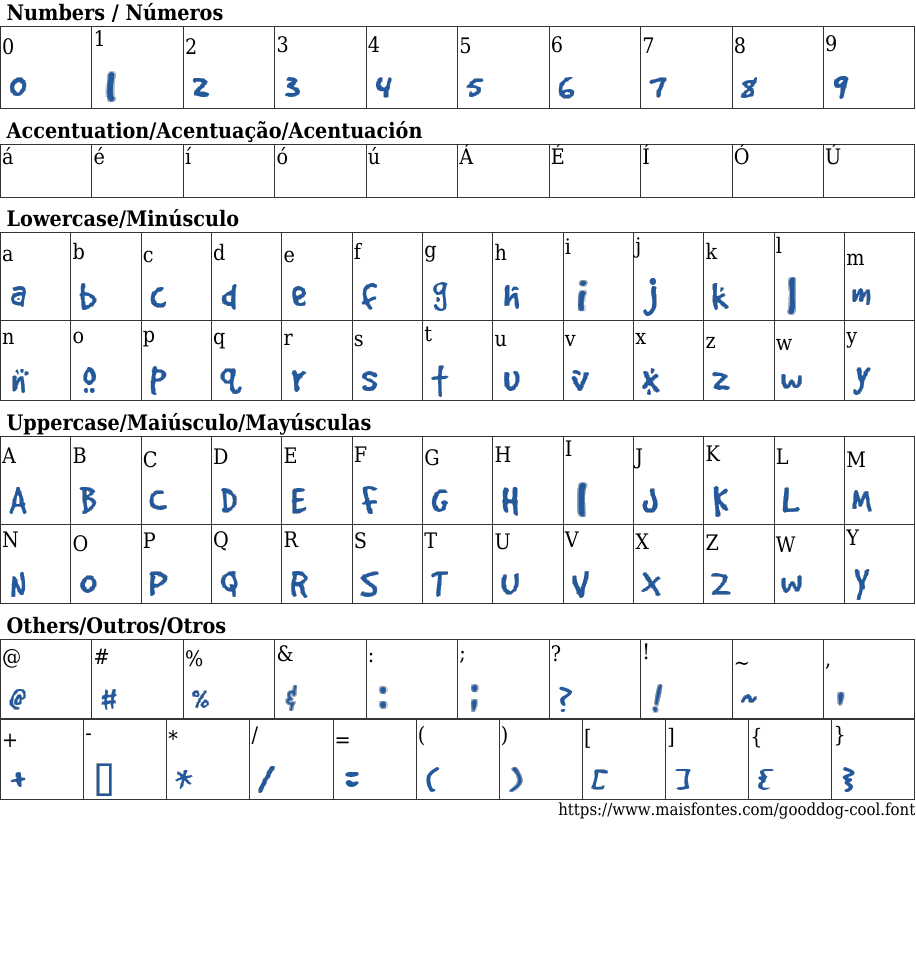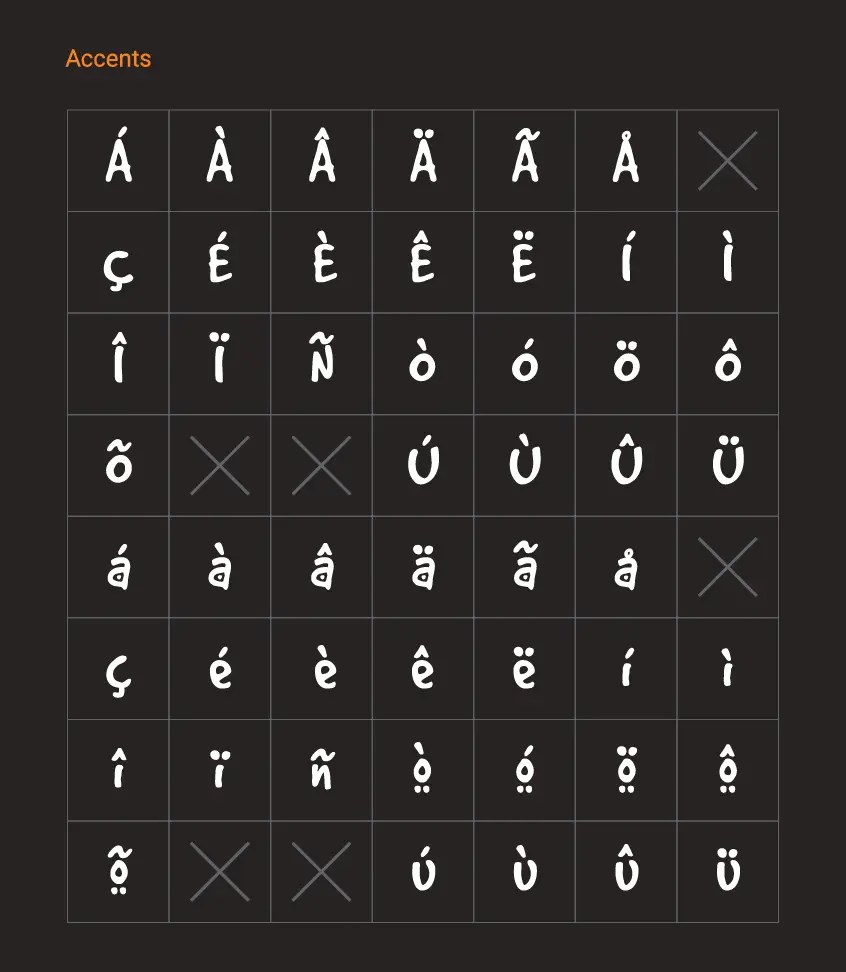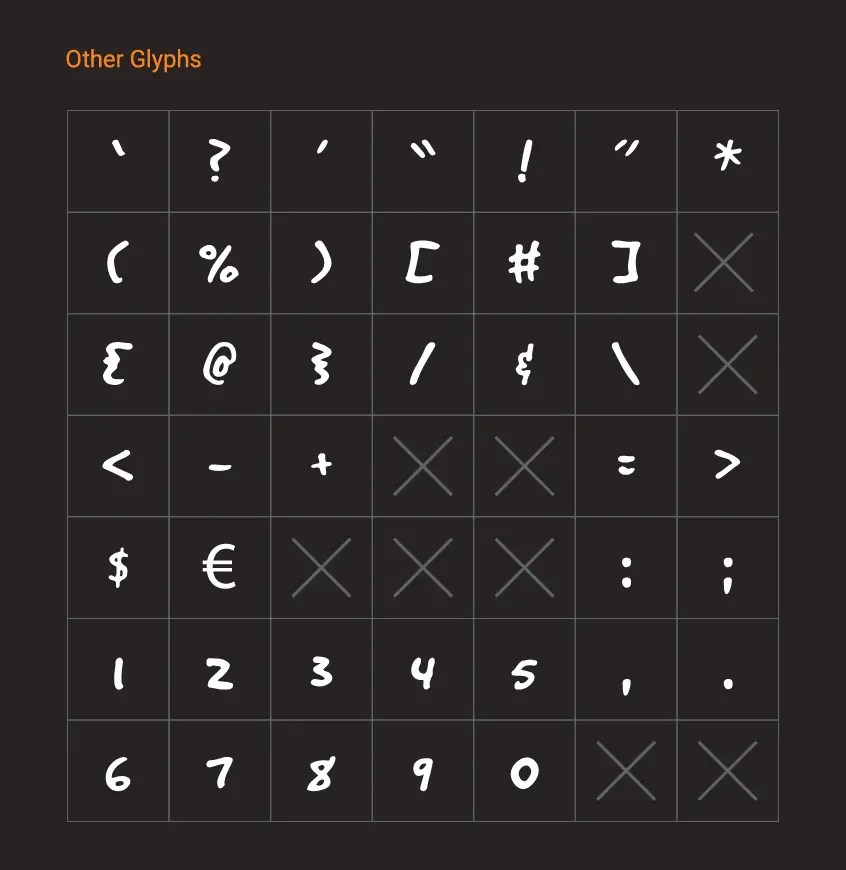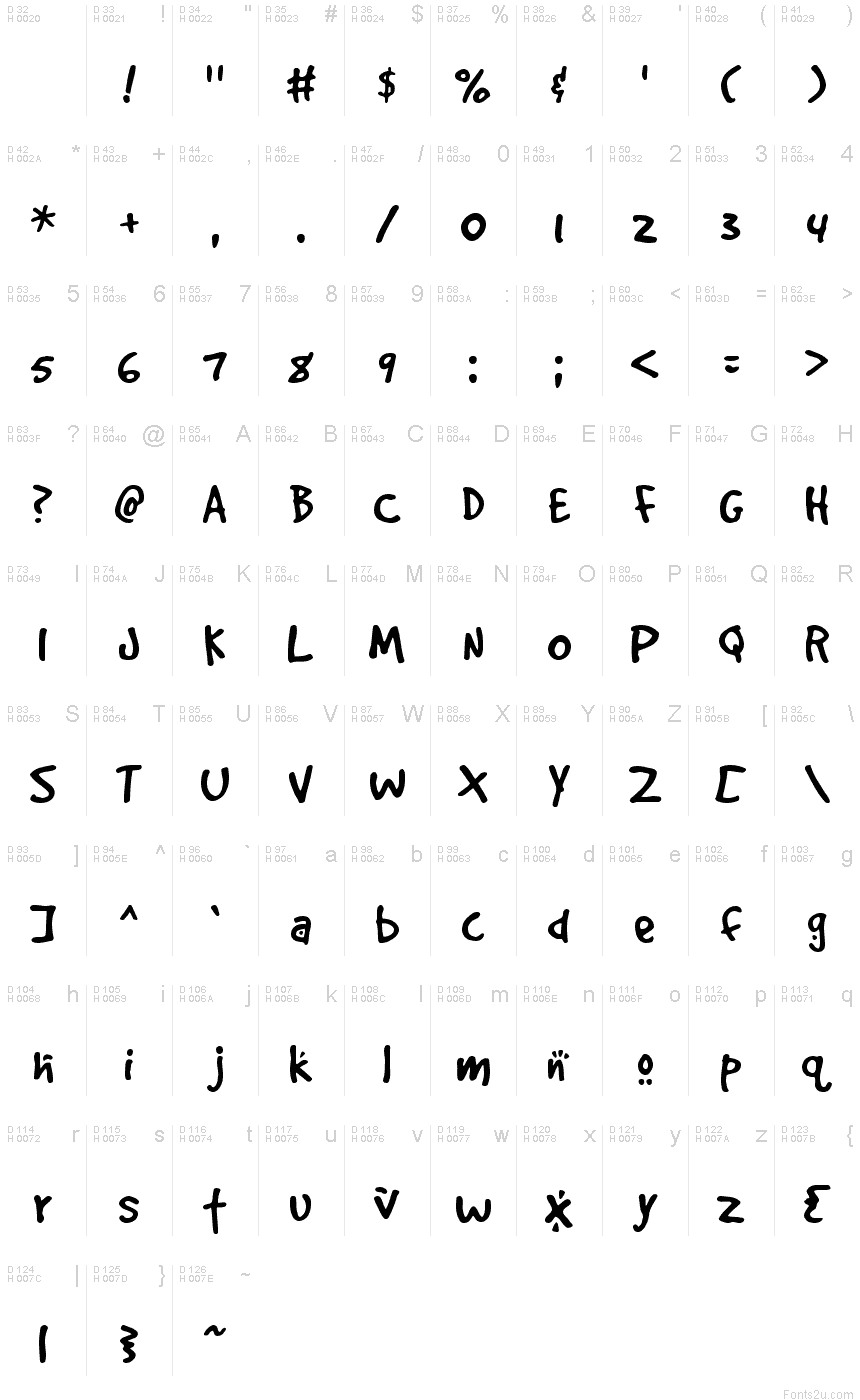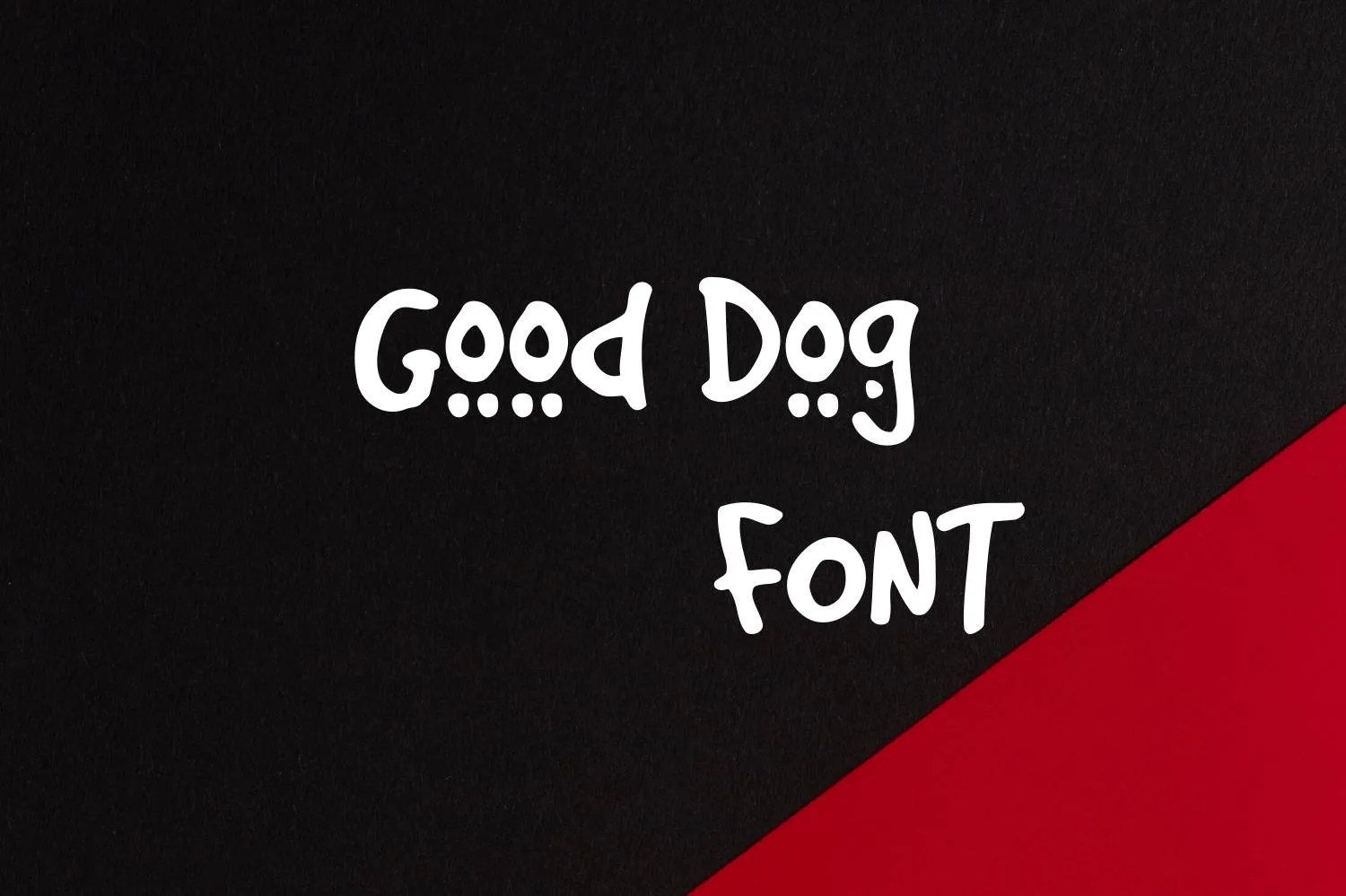
Download Font Gooddog Cool . It consists of two styles, gooddog cool and gooddog plain. Download gooddog cool font from free cdn or use it on your website as webfont. Good dog cool font download is available free from fontget. Font gooddog cool, license and terms of use, symbols, categories, supported languages, download link. Gooddog font is a fun, wacky free typeface, designed by fonthead. Comic handwriting kids script or brush brush. Download gooddog cool font · free for commercial use ·. Good dog cool is a handwritten type font that can. Good dog cool is a free font for commercial use created by fonthead design. Good dog à by fonthead design.
Good dog cool is a free font for commercial use created by fonthead design. It consists of two styles, gooddog cool and gooddog plain. Font gooddog cool, license and terms of use, symbols, categories, supported languages, download link. Good dog à by fonthead design. Download gooddog cool font from free cdn or use it on your website as webfont. Good dog cool font download is available free from fontget. Good dog cool is a handwritten type font that can. Gooddog font is a fun, wacky free typeface, designed by fonthead. Download gooddog cool font · free for commercial use ·. Comic handwriting kids script or brush brush.
Download Font Gooddog Cool Good dog cool is a free font for commercial use created by fonthead design. It consists of two styles, gooddog cool and gooddog plain. Download gooddog cool font from free cdn or use it on your website as webfont. Font gooddog cool, license and terms of use, symbols, categories, supported languages, download link. Good dog cool is a handwritten type font that can. Good dog à by fonthead design. Good dog cool is a free font for commercial use created by fonthead design. Download gooddog cool font · free for commercial use ·. Gooddog font is a fun, wacky free typeface, designed by fonthead. Good dog cool font download is available free from fontget. Comic handwriting kids script or brush brush.
GoodDog Font Free Download FontSwan Download Font Gooddog Cool Download gooddog cool font · free for commercial use ·. Good dog cool is a free font for commercial use created by fonthead design. Good dog cool font download is available free from fontget. Font gooddog cool, license and terms of use, symbols, categories, supported languages, download link. Good dog à by fonthead design. Gooddog font is a fun, wacky. Download Font Gooddog Cool.
GoodDog Cool characters Download Font Gooddog Cool Download gooddog cool font from free cdn or use it on your website as webfont. Download gooddog cool font · free for commercial use ·. Comic handwriting kids script or brush brush. Gooddog font is a fun, wacky free typeface, designed by fonthead. Good dog cool is a free font for commercial use created by fonthead design. Good dog cool. Download Font Gooddog Cool.
Good Dog Font Free Download Font Gooddog Cool Comic handwriting kids script or brush brush. Download gooddog cool font from free cdn or use it on your website as webfont. Good dog à by fonthead design. It consists of two styles, gooddog cool and gooddog plain. Download gooddog cool font · free for commercial use ·. Good dog cool is a free font for commercial use created by. Download Font Gooddog Cool.
Download GoodDog Cool Font Free Font Download Font Gooddog Cool Good dog cool font download is available free from fontget. Comic handwriting kids script or brush brush. Good dog cool is a free font for commercial use created by fonthead design. Good dog à by fonthead design. Download gooddog cool font from free cdn or use it on your website as webfont. Download gooddog cool font · free for commercial. Download Font Gooddog Cool.